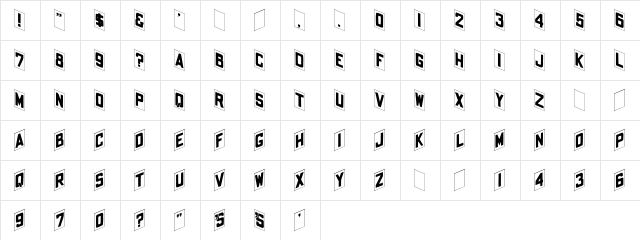
Shohl Fold
Design Context for Shohl Typeface
Shohl is a composed and adaptable typeface that performs quietly and consistently across a wide range of design contexts.